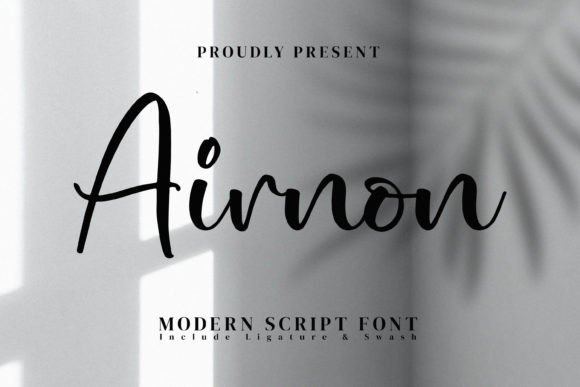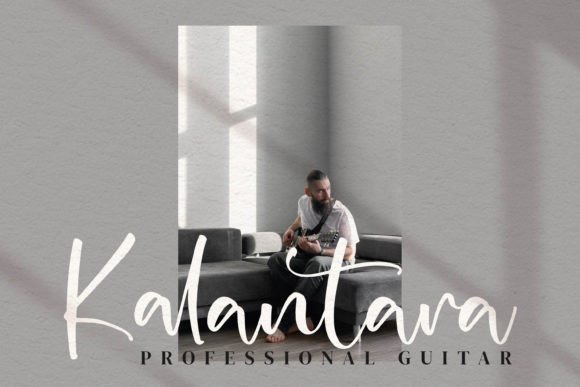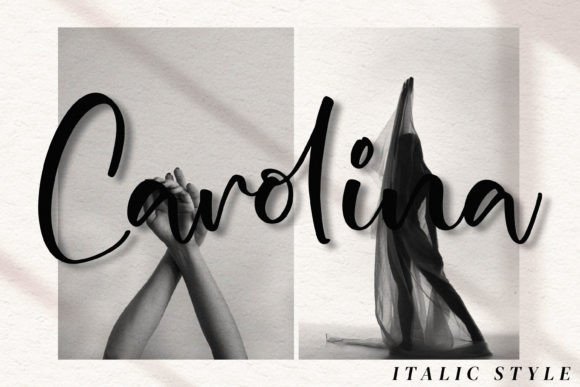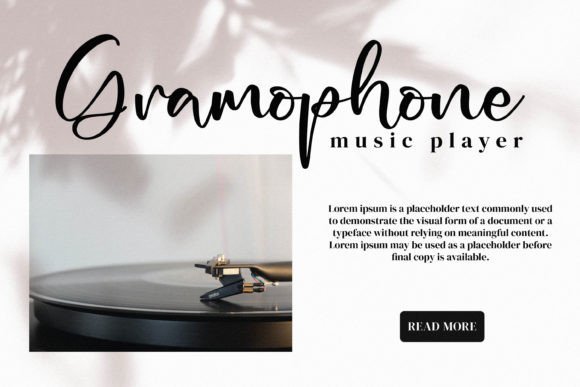
Airnon Font: Elegant Handwritten Script for Branding & Logo Design
About the Airnon Font
Let us introduce you to Airnon Font, where timeless design meets modern craftsmanship. Airnon is a stylish and elegant handwritten script font. Whatever the topic, this font will be a wonderful asset to your font library, as it has the potential to enhance any creation.
Airnon’s elegant, flowing forms make it ideal for projects requiring a touch of refined sophistication. It excels in headlines, logos, short quotes, and invitations, adding a personalized feel to branding materials and packaging design. However, its delicate strokes and varying letterforms make it unsuitable for extended body text or UI elements where readability is paramount.
Consider pairing Airnon with a clean sans-serif like Lato for a balanced contrast, or a modern serif like Playfair Display for a more classic feel. For a playful touch, a geometric sans-serif could add visual interest.
Airnon projects a sophisticated and slightly feminine personality, conveying grace and charm. It’s a versatile choice for brands targeting a discerning audience seeking a touch of handwritten elegance.